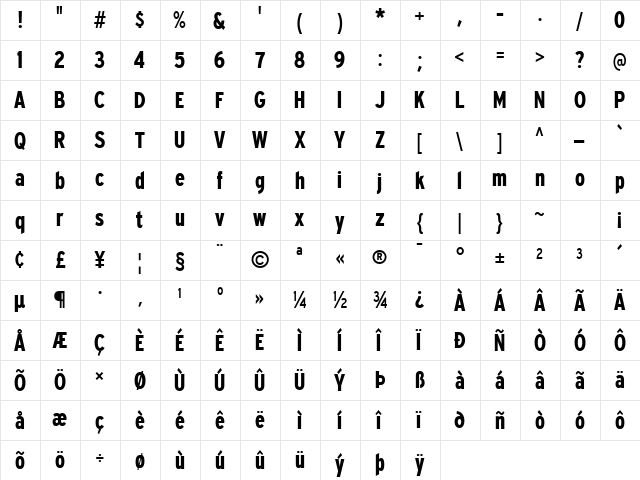
Expressway Condensed SemiBold
Design Context for Expressway Typeface
Expressway takes a measured approach to typography — its balanced proportions and neutral character make it a reliable workhorse for both digital and print work. Its bold stroke weight gives it real presence on the page. Its narrow stance lets it pack a punch even in space-constrained designs.
Pro Tip: Pair Expressway with a font of contrasting weight or personality to build a more expressive typographic hierarchy.